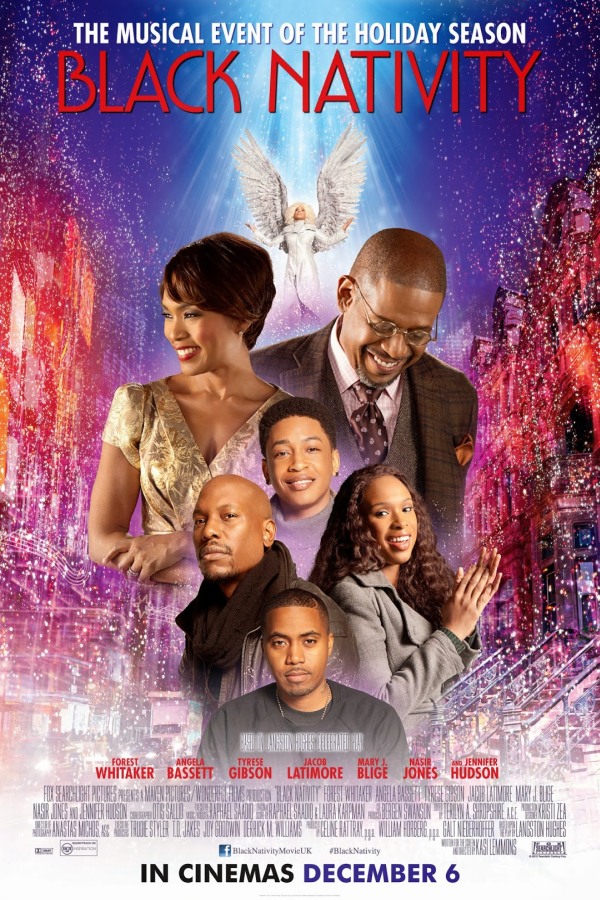
Black Nativity Font
Fonts in UseBlack Nativity is a 2013 musical film directed by Kasi Lemmons, based on a Langston Hughes play. It follows a teenager who spends Christmas with his estranged grandparents in Harlem and learns about the importance of faith, family, and forgiveness.
The art deco style sans serif font used in the movie poster's title resembles Hollywood Deco. This font is commercially available and you can find additional information about it here.